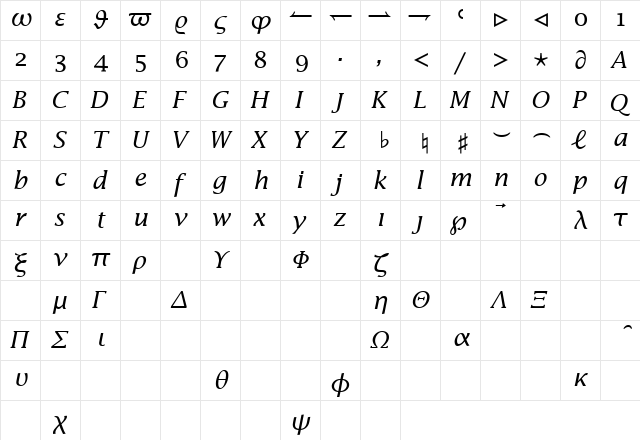
Insight Math Extension SSi Alternate Extension
Design Context for Insight Math Extension SSi Typeface
Insight Math Extension SSi takes a measured approach to typography — its balanced proportions and neutral character make it a reliable workhorse for both digital and print work.